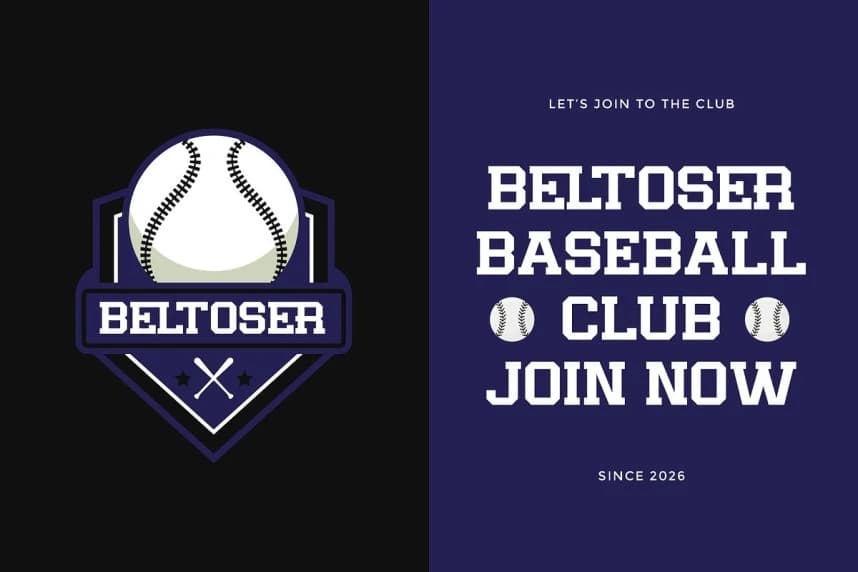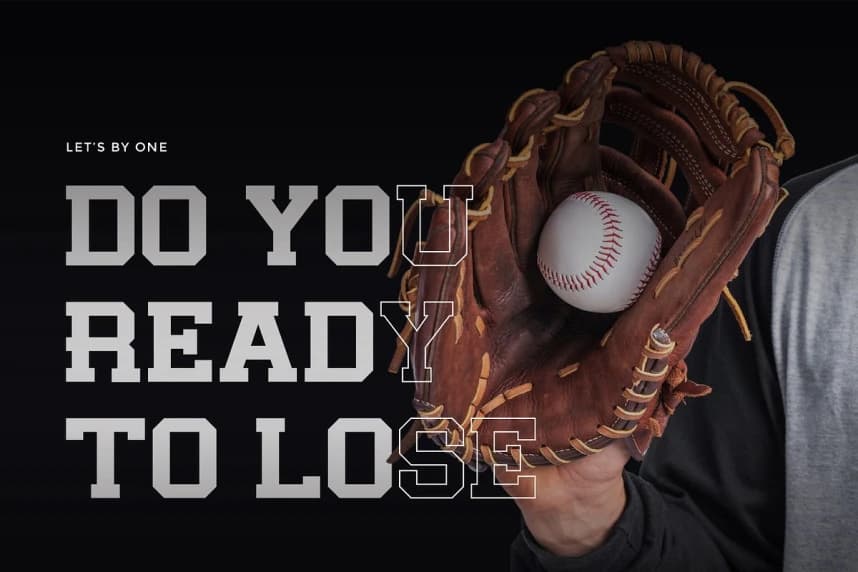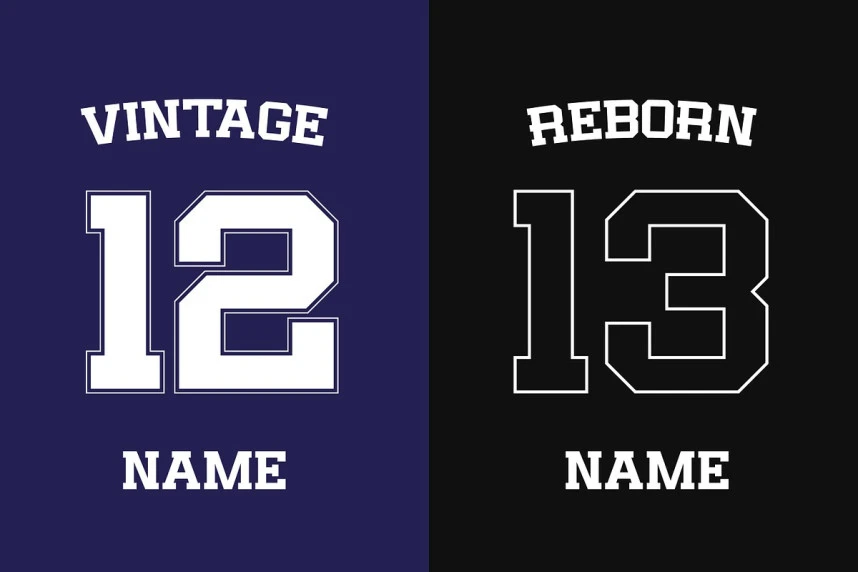
Gehors Font
Gehors Font is a modern sport display typeface built to express strength, speed, precision, and competitive energy. Featuring sharp angles, bold structure, tight spacing, and a forward-moving structure, Gehors creates a sense of motion that feels strong and aggressive.